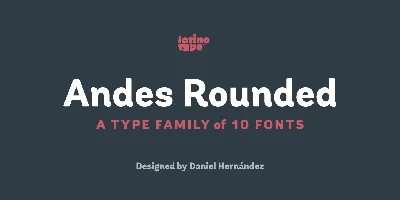
Andes Rounded Font
Andes Rounded Font is a friendly, modern sans-serif typeface featuring soft, rounded edges that add warmth and approachability to your designs. Perfect for branding, logos, packaging, posters, social media graphics, and web design, this font offers a versatile and contemporary aesthetic that works well for both professional and casual projects.
With Andes Rounded Font, you’ll receive a complete set of uppercase letters, lowercase, numbers, and essential punctuation, providing flexibility for various design applications. Whether you’re crafting a modern logo, designing promotional materials, or creating engaging digital content, this font ensures a clean, friendly appearance that enhances readability.
Add a warm, approachable feel to your designs with Andes Rounded Font. Its modern yet friendly style makes it an excellent choice for designs that need to convey both clarity and personality.